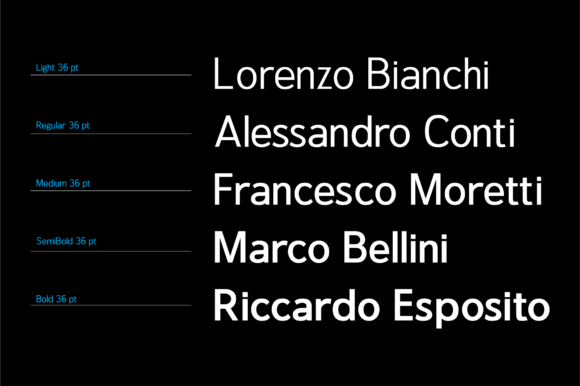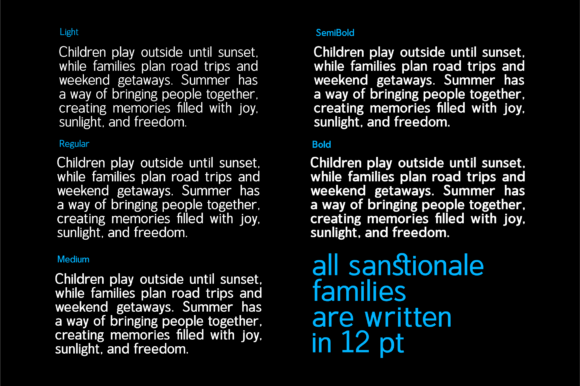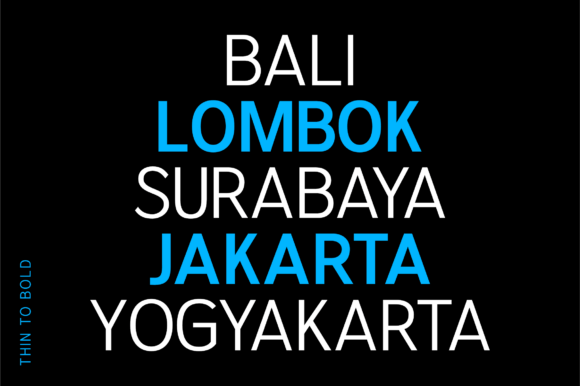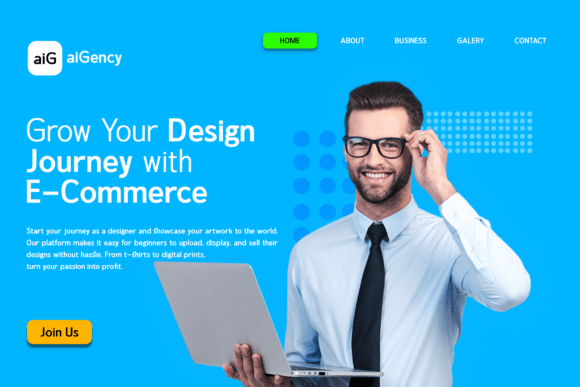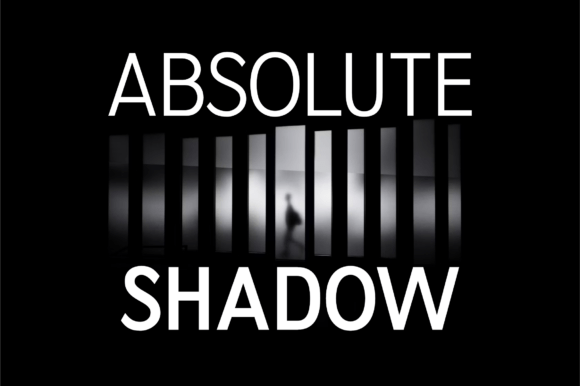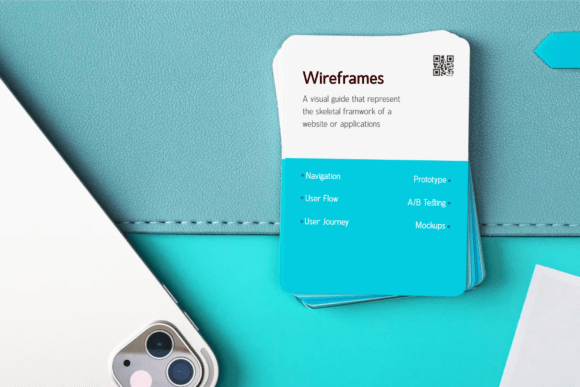
Introduction to Sanstionale Font
As a designer, have you ever found yourself staring at a blank canvas, searching for the perfect font to bring your creative project to life? It’s that moment of frustration when you need a reliable design resource that can elevate your work and make it stand out. This is where the Sanstionale Font comes in – a modern sans-serif font family designed to deliver high-quality readability and balanced proportions.
With its five weights – Thin, Regular, Medium, Semi-Bold, and Bold – the Sanstionale Font is the ultimate solution for designers who want to add a touch of sophistication to their titles, branding, and body text. Whether you’re working on a digital project or print materials, this versatile font is sure to impress. And the best part? You can download it for free, complete with a transparent background, making it easy to use in any design environment.
So why is the Sanstionale Font so valuable for designers? It’s because it offers a clean and professional look that can be applied across various media, from websites and social media to brochures and business cards. With the Sanstionale Font, you can create a consistent visual identity that reflects your brand’s personality and style.
Key Features of Sanstionale Font
- High-quality design resource suitable for creative projects and presentations.
- Includes a range of font sizes, from 12pt to 72pt, making it suitable for various design applications.
- Designed at a high resolution of 300 DPI, ensuring crisp and clear typography in both digital and print media.
- Unique characteristics include elegant, modern lines and subtle texture, adding a touch of sophistication to any design project.
Honest Review: Sanstionale Font
I recently stumbled upon the Sanstionale Font while searching for a high-quality design resource for a creative project. I was excited to try it out and see if it would meet my expectations.
Here are some of the things that work well: ✨ The Sanstionale Font has a beautiful, modern aesthetic that’s perfect for any design project. The font is highly customizable and can be easily adapted to fit any style or theme. The free download option is also a huge plus, making it accessible to designers of all levels.
Overall, I was impressed with the Sanstionale Font’s design and versatility. While it may have some limitations, it’s still a valuable resource for any designer looking to add some flair to their creative project.
Here are some key features to keep in mind:
- High-quality, modern design
Sanstionale Font is ideal for creative projects such as logos, social media graphics, and infographics. Its versatility and high-quality design make it a great resource for designers and non-designers alike.
To get the most out of Sanstionale Font, experiment with different font sizes and styles. Combine it with other design elements, such as images and graphics, to create a cohesive and visually appealing design.